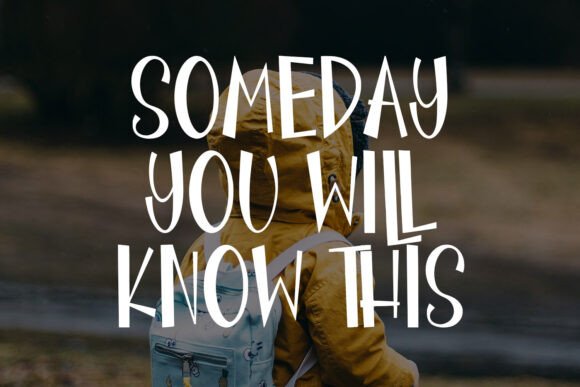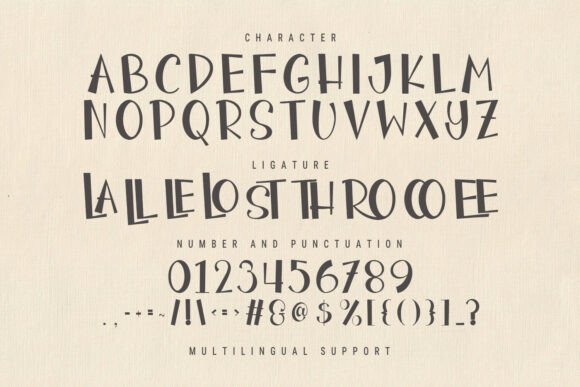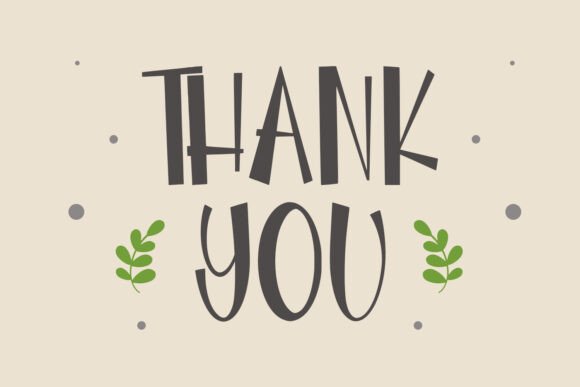
Introduction to Rongkus Font
Remember the excitement of receiving a birthday invitation as a child, complete with colorful illustrations and playful lettering that seemed to leap off the page? For many of us, those early experiences sparked a lifelong love of creativity and design. But what makes a font truly special is the way it can transport us back to those carefree moments. Enter the Rongkus Font, a delightful display font that captures the essence of childhood wonder and brings a touch of whimsy to any design project.
As a valuable resource for designers, the Rongkus Font offers a unique blend of personality and playfulness, making it perfect for a wide range of creative projects. Whether you’re working on a children’s book, educational materials, or a fun birthday invitation, this high-quality font is sure to add a touch of magic to your design.
Key Features of Rongkus Font
- Unique Script Font: Rongkus Font is a beautiful, handwritten script font perfect for creative projects that require a personal touch.
- High-Quality Design: This font is designed with high-quality graphics, ensuring a crisp and clear display on any device.
- Large Character Set: This font includes a large character set, including uppercase and lowercase letters, numbers, and punctuation marks.
- Perfect for Design Projects: Rongkus Font is ideal for creative projects, such as logos, business cards, invitations, and more.
Honest Review: Rongkus Font
What works well with the Rongkus Font is its versatility. It’s available in a variety of weights and styles, making it suitable for a range of design applications, from headings to body text. I also appreciate that it comes with a transparent background option, which is a must-have for any designer who wants to achieve a seamless design.
Here are some of the key features that I found useful:
- Wide range of weights and styles to choose from
However, I did encounter a few limitations with the Rongkus Font. ⚠️ The font doesn’t support all languages, which is a major drawback for designers who work on multilingual projects. Additionally, the font’s quirky aesthetic may not be suitable for all design styles or industries.